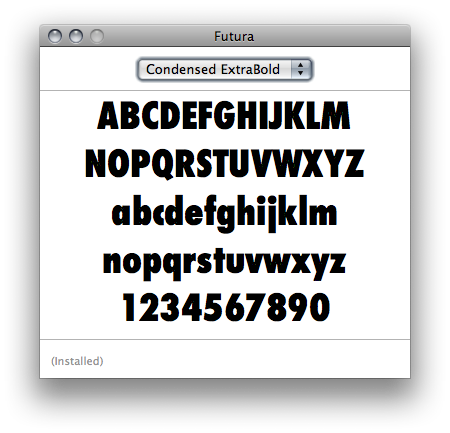
Anyone know what font this is?
What is the font used on Headline News' Morning Express. It looks like Interstate or one of the other Frere-Jones fonts, but I can't be sure.
To see it, watch Headlines News in the morning or look here.
moo.com font?
I am using this font on my moo cards and wanted to use it on my website aswell, can anyone identify it?
It is just called "script" on moo.com.
Anyone? Already tried What the Font, and searching for stuff like "dot font, dotted, etc..." Thanks!
Please Identify this font :)
I´ve been searching for a few days now, but can´t really find that font, searched for both Old english and gothic, but not very much luck.
Would any of you by any chance know what font "Relentless" is written in?
goodness knows why you want it - it's completely unreadable. Useless font imo
Is that going to be your standard answer from now on? Sometimes people have to use a particular font because, y'know, a client wants it and, not being a designer, the client has no clue what the font is called or where it came from ...
You're quick enough to accuse designers of being snarky and unhelpful on other threads and yet here you are ...
To mb54546 ... I've done several searches and whilst I can find broadly similar fonts, I can't find a match for that capital R on Relentless. If you're looking to recreate that exact logo, you may have to go for second best and customize the R.
Try doing a search on "blackletter fonts" instead of the ones you've already tried and you'll see what I mean.
goodness knows why you want it - it's completely unreadable. Useless font imo
Who are you to decide? Maybe I have special purposes? Maybe you should learn to read? I don´t know, but I think you are a bit too offensive for no reason.
Is that going to be your standard answer from now on? Sometimes people have to use a particular font because, y'know, a client wants it and, not being a designer, the client has no clue what the font is called or where it came from ...
You're quick enough to accuse designers of being snarky and unhelpful on other threads and yet here you are ...
To mb54546 ... I've done several searches and whilst I can find broadly similar fonts, I can't find a match for that capital R on Relentless. If you're looking to recreate that exact logo, you may have to go for second best and customize the R.
Try doing a search on "blackletter fonts" instead of the ones you've already tried and you'll see what I mean.
Thanks Jim but i checked it out, Futura's 'O' is
almost a perfect circle
Thanks Jim but i checked it out, Futura's 'O' is
almost a perfect circle
Not in Futura Condensed ExtraBold, it's not:
Your sample looks less condensed than my font above and I guessed at Futura ExtraBold ... but you'll notice I did also say "or some near variant" ...
Looks at the G, the S, the M ... it's definitely some flavour of Futura, it's just that I don't have all 27,000 variants installed.
Thanks Jim, Futra Condensed look really nice,
27,000 variations is a whole lot of fonts
Help finding font
I've searched my database with zillions of fonts, googled my way through the web, tried with identifont.com, etc....and still I can't figure what font is this.
Check the lower case g and k...they are giveaways.